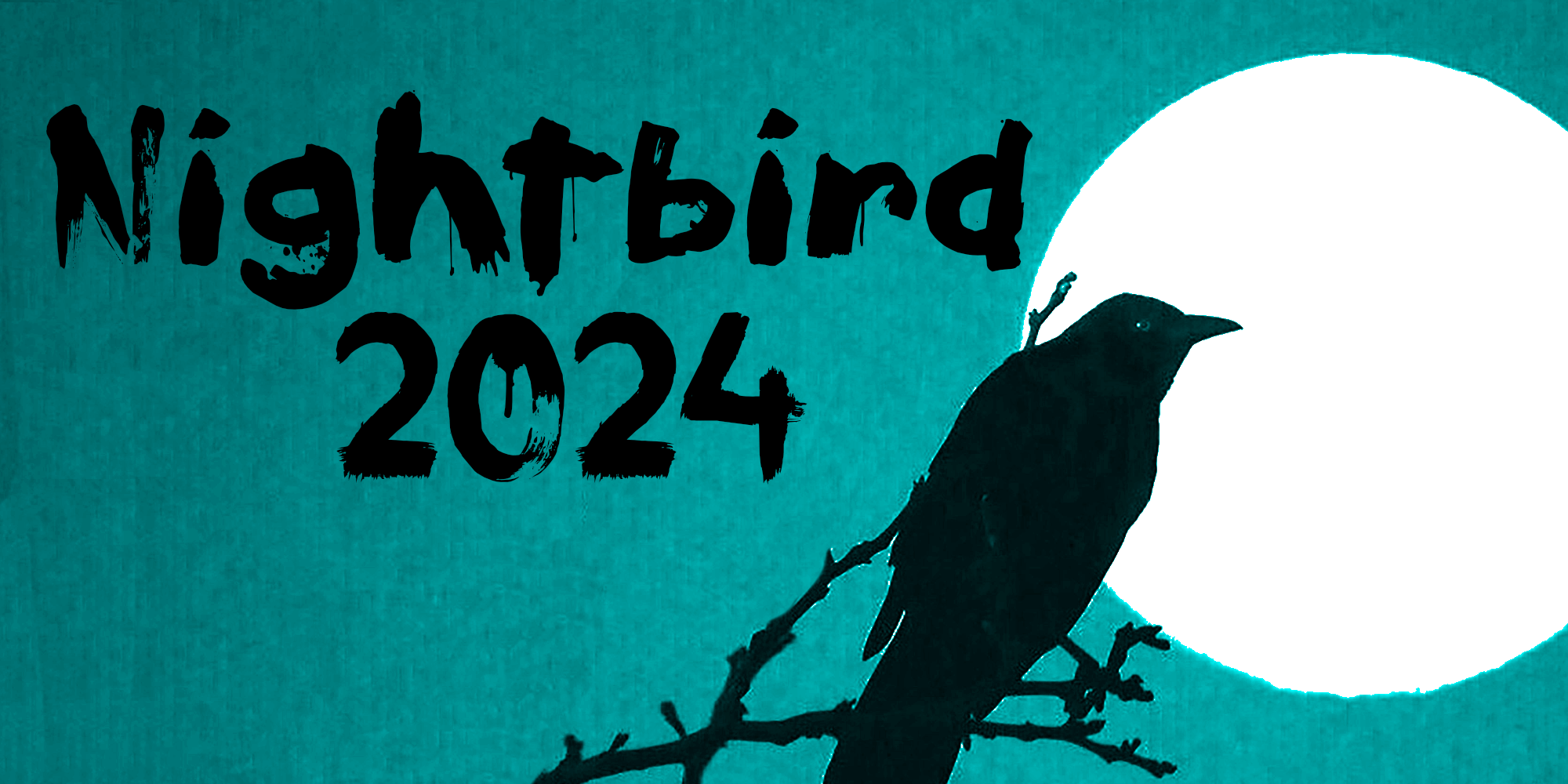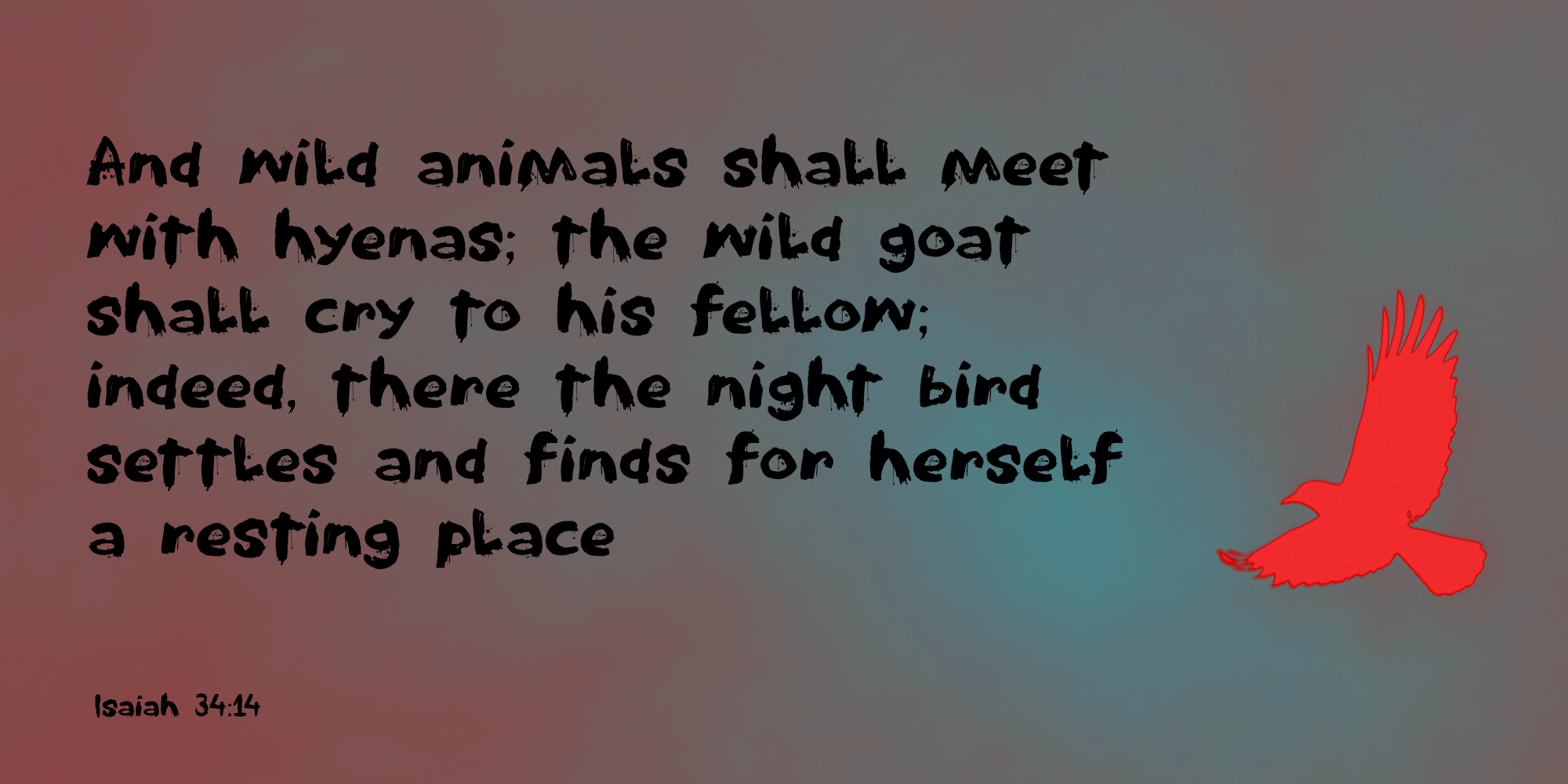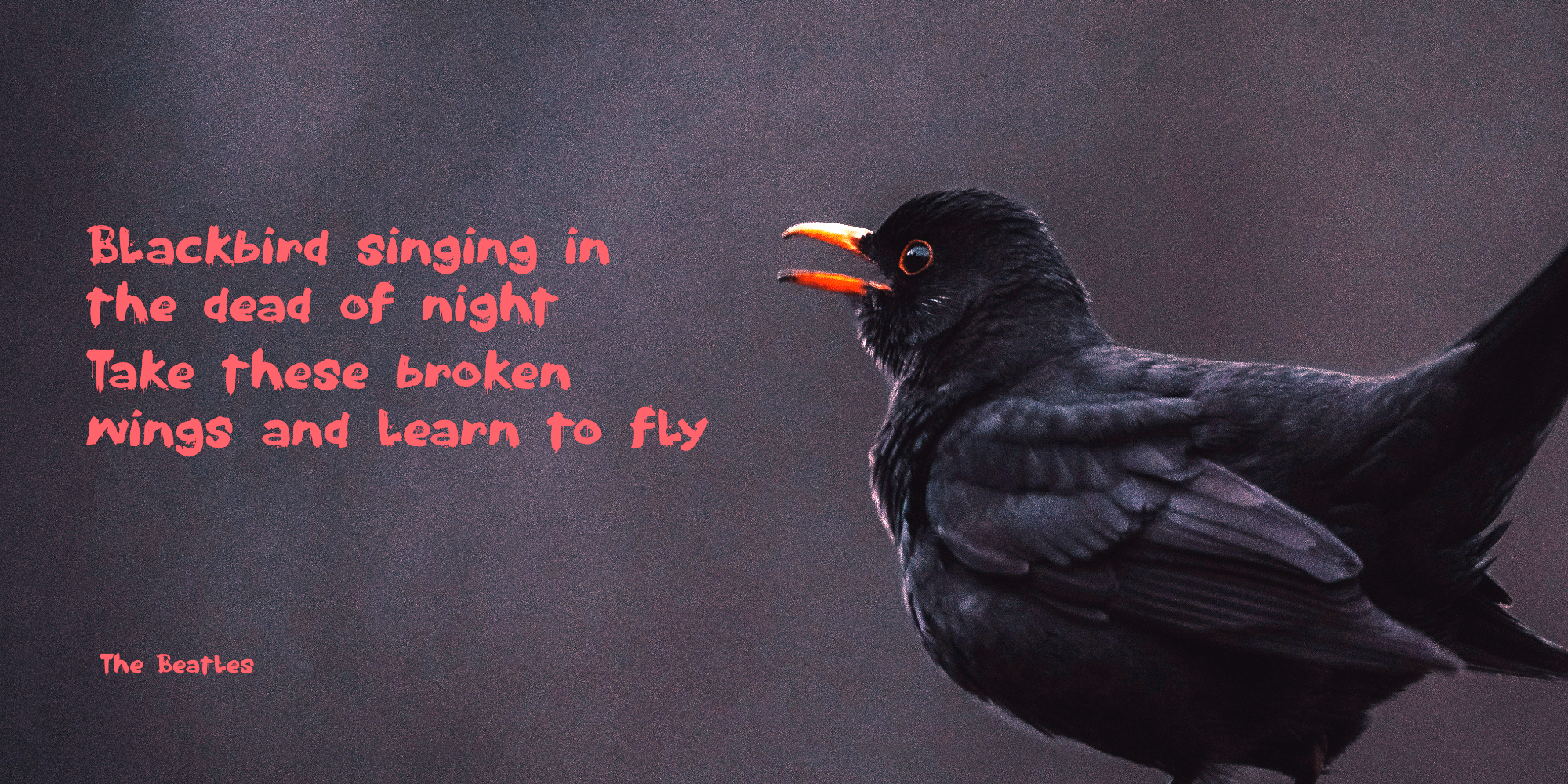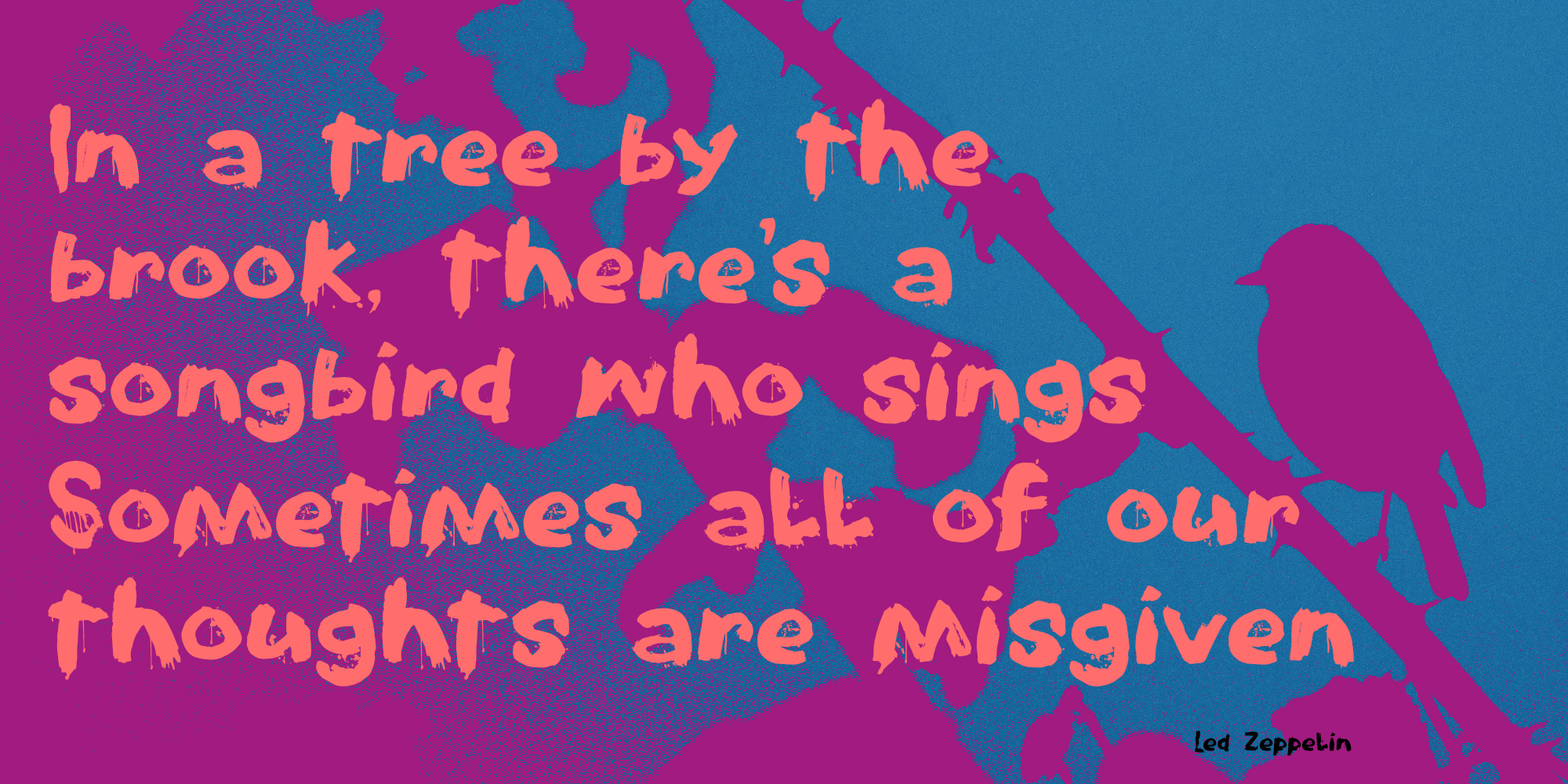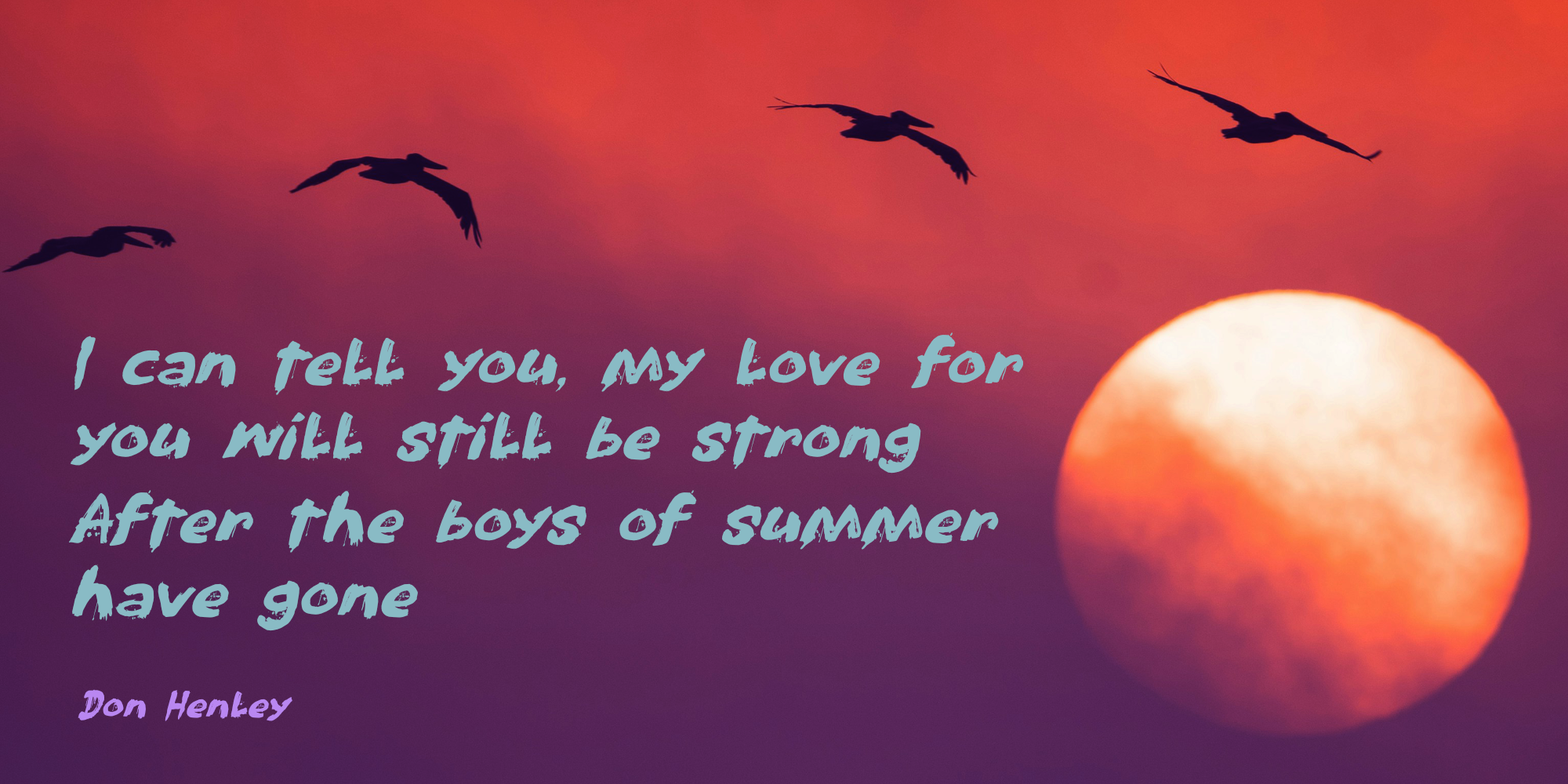
Nightbird 2024 (2 fonts)
I reworked the font, kept as much of the original upper case as I could (except for some really crazy brush strokes) and made a brand new lower case, plus all the missing non-letter glyphs.
Comes with extensive language support as well.